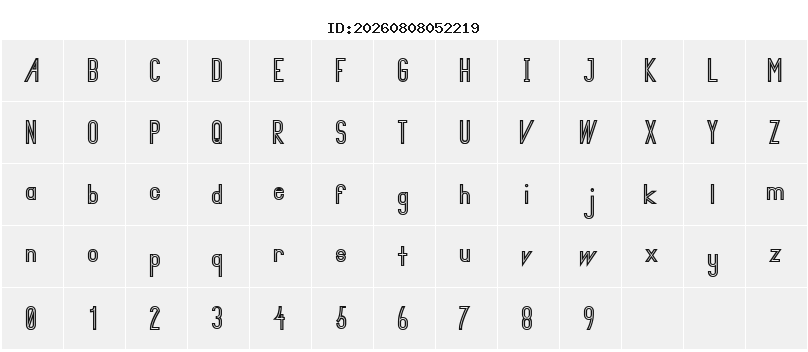
Primadona Vintage Preview
• Font Name: Primadona Vintage
• Full Font Name: Primadona Vintage
• PostScript Name: PrimadonaVintage
• Designer: cenz qobbal
• Manufacturer: cenz qobbal
About Primadona Vintage.ttf
Primadona Vintage.ttf is a modern, elegant sans-serif font designed for ultimate readability and visual harmony. Perfect for branding, headlines, web design, and print materials.